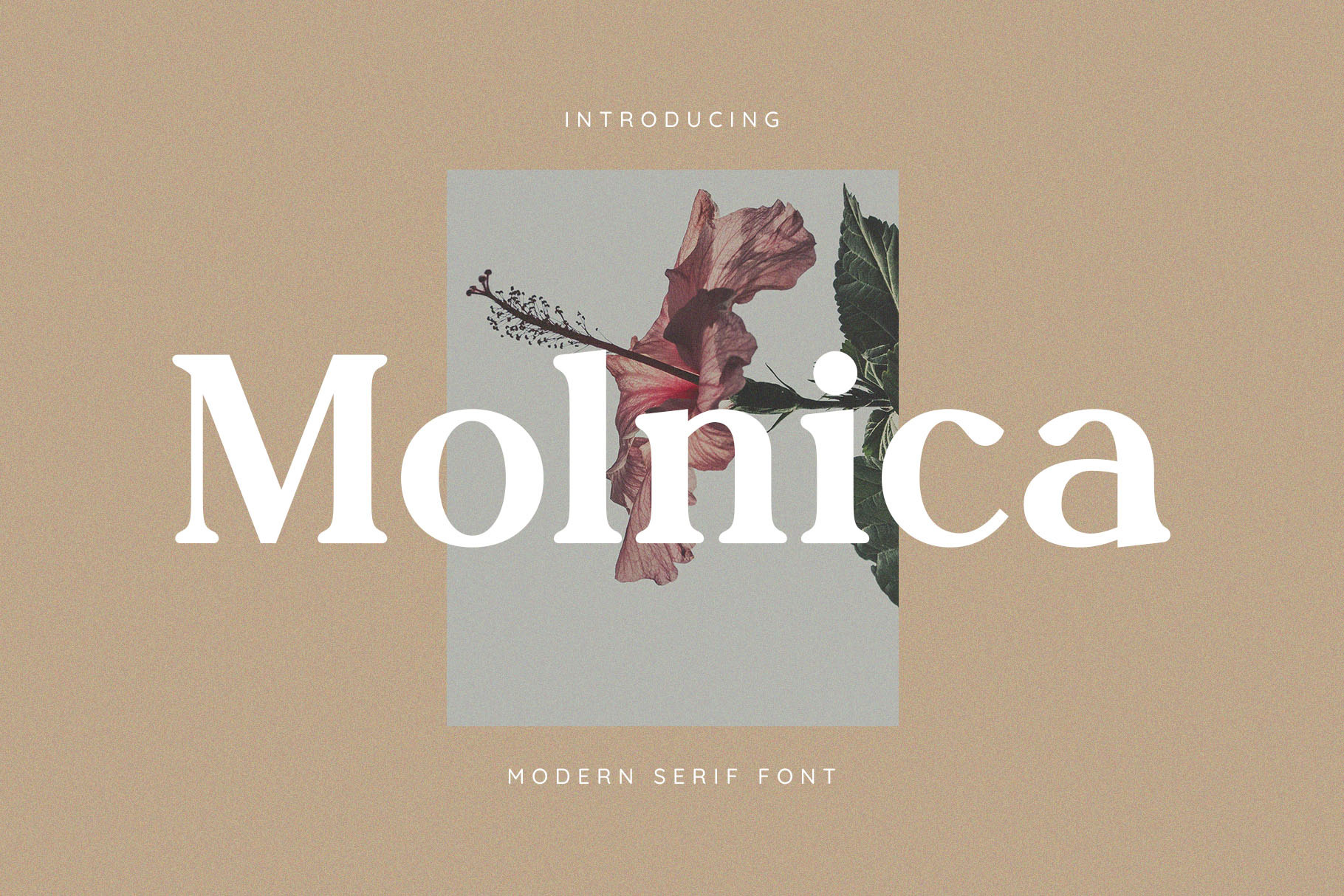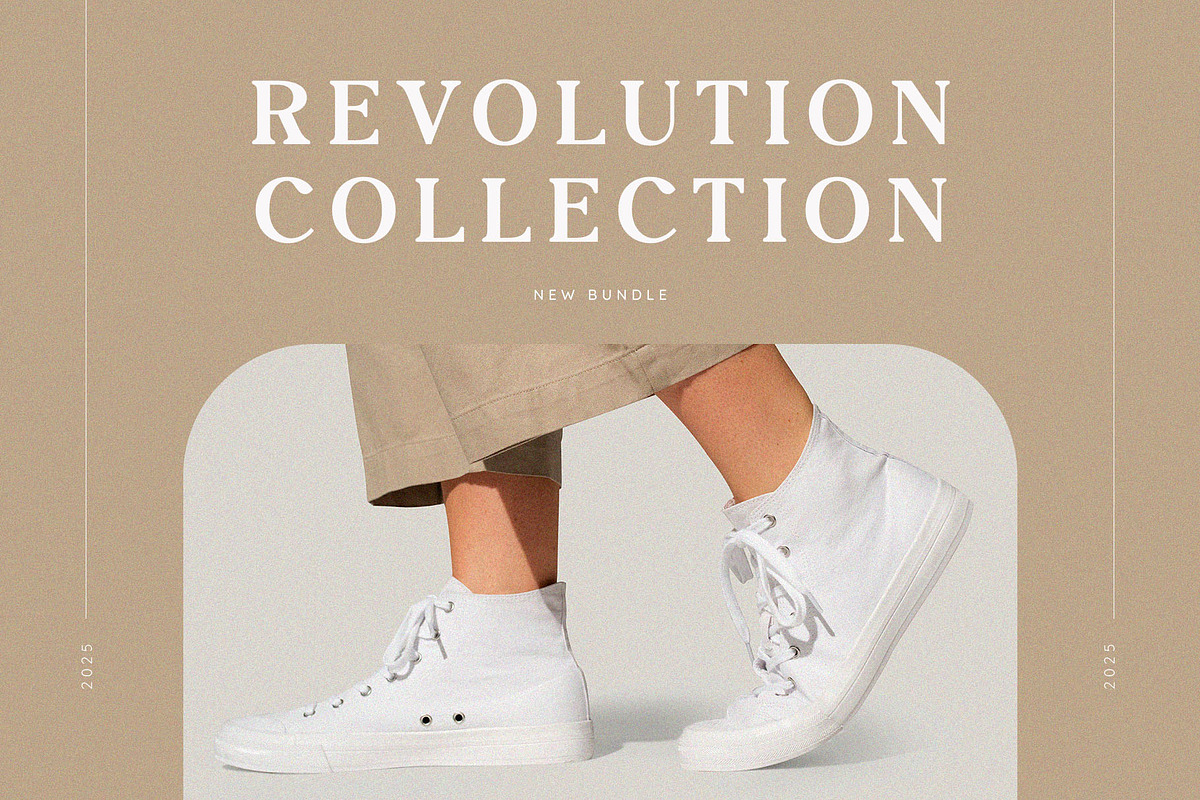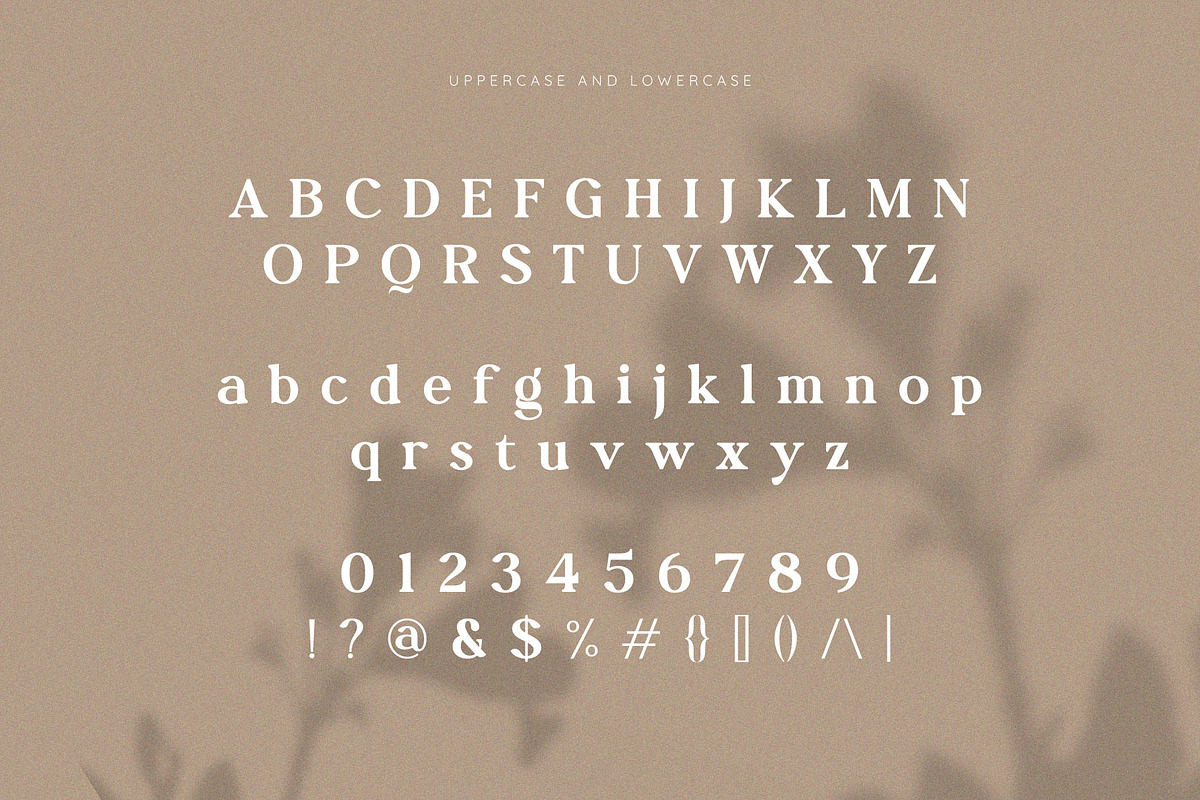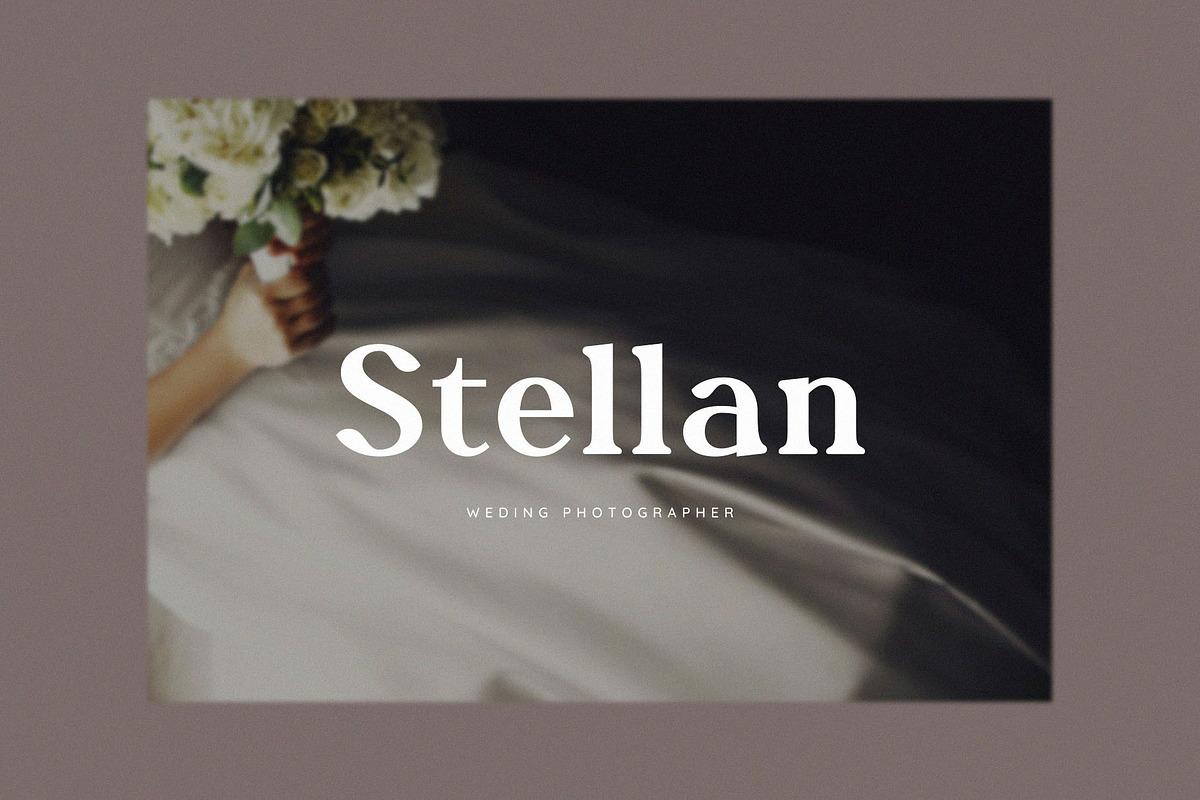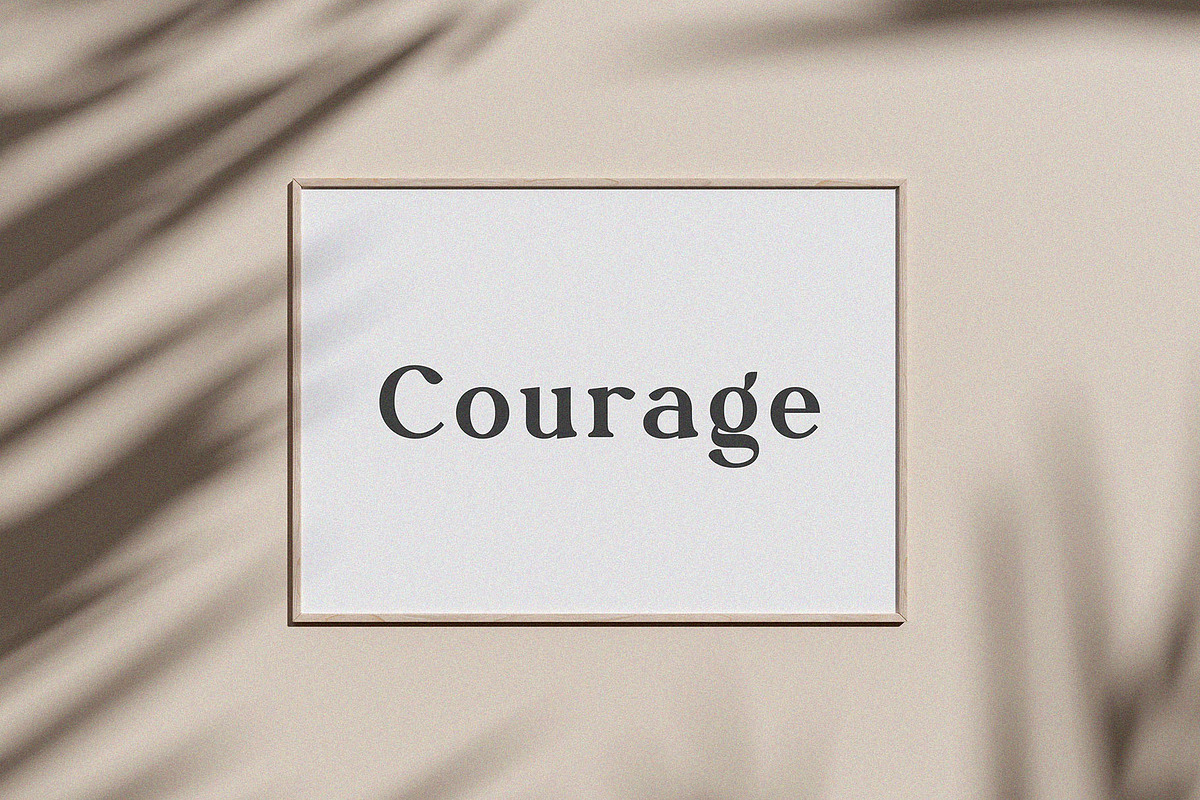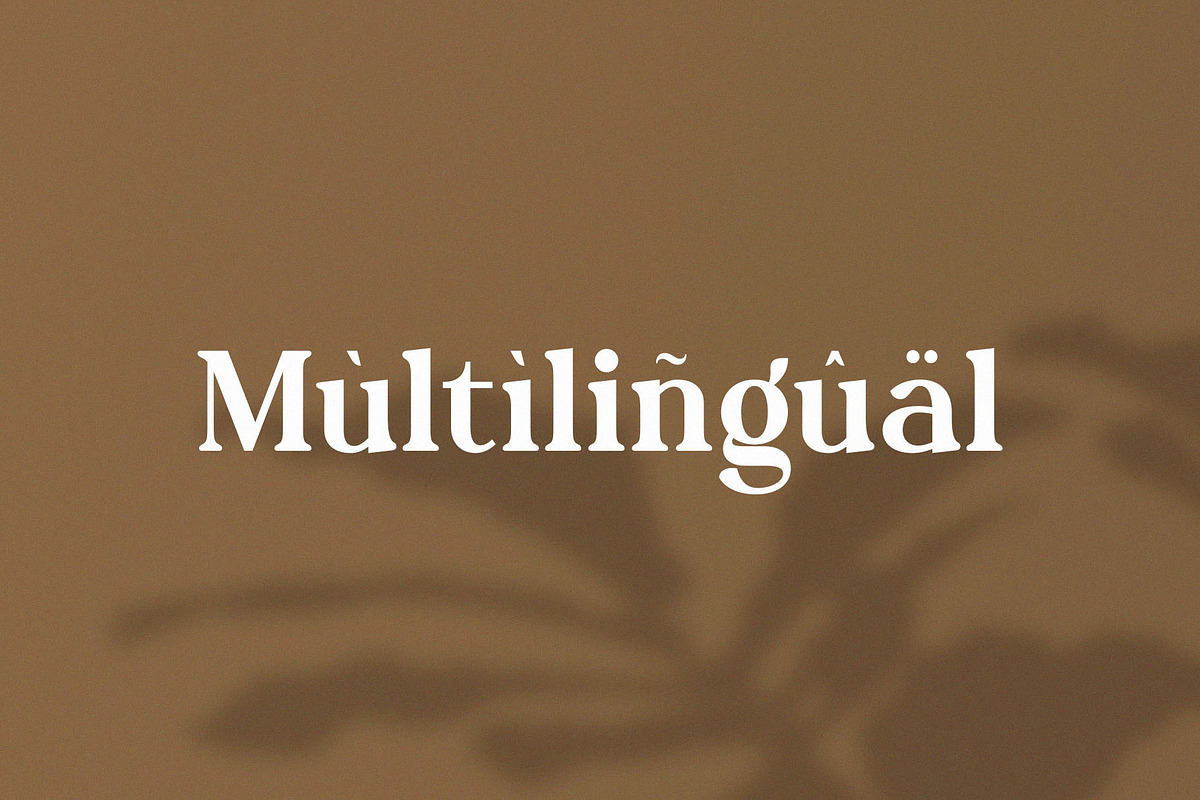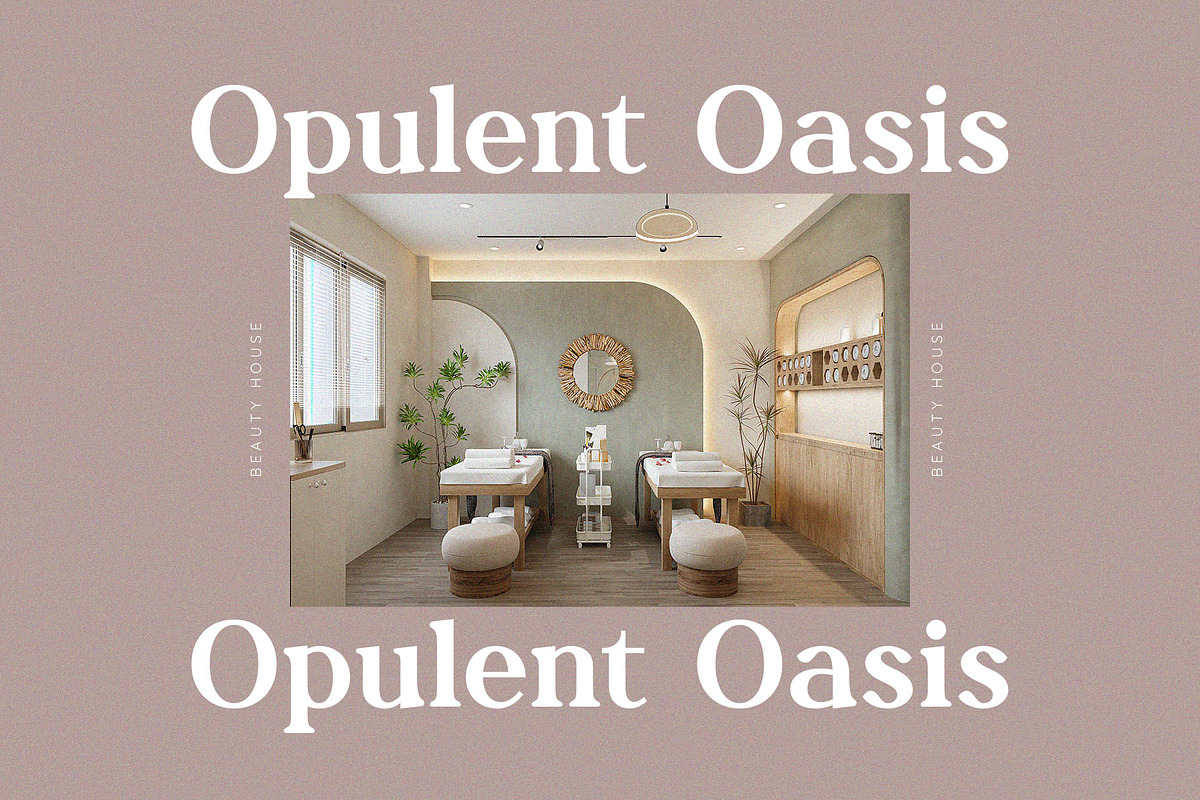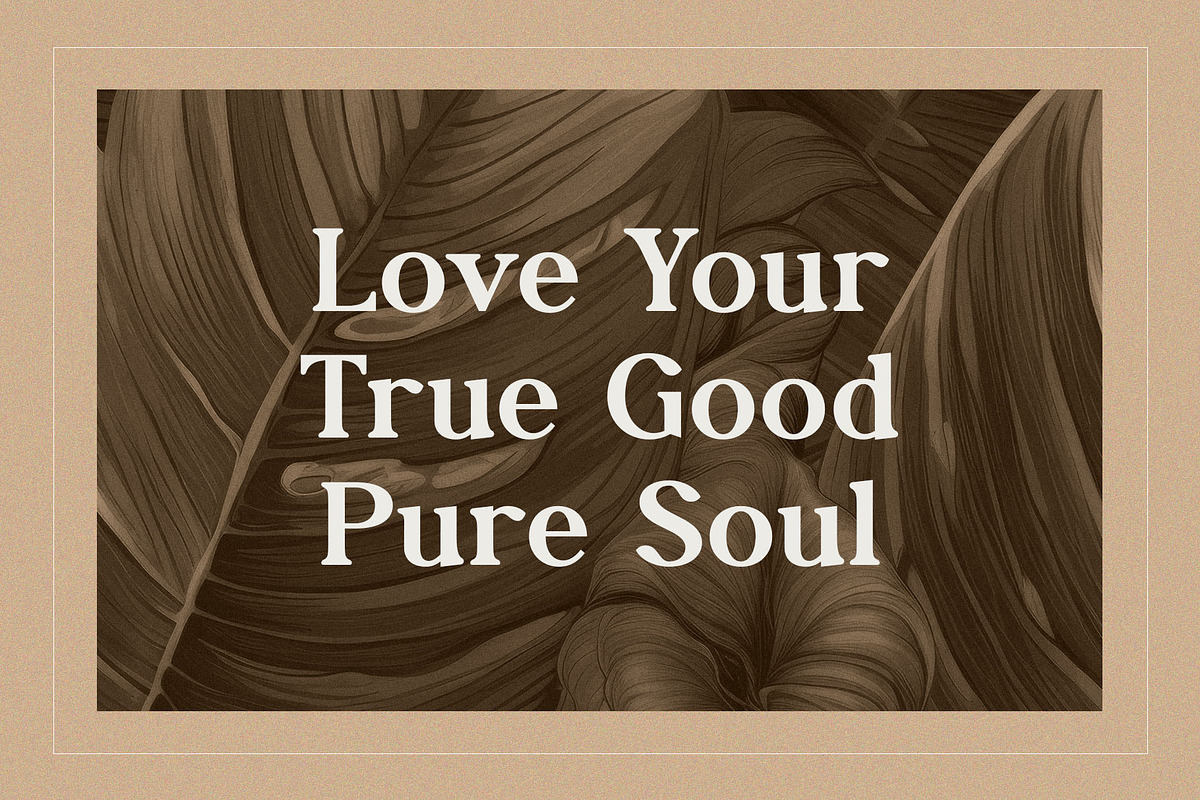
Molnica – Stylish Modern Serif Font
Molnica – Stylish Modern Serif Font for Elegant Visual Branding
Say hello to Molnica, a modern serif font that blends bold character with graceful curves. Designed for contemporary elegance, Molnica is the perfect choice for brands, creatives, and designers looking to add a touch of luxury and refinement to their work.
With strong contrast and well-defined serifs, Molnica stands out beautifully in headlines, logos, packaging, wedding designs, and social media visuals. Its timeless style makes it suitable for both high-end and artistic applications.
- Modern serif style with classic elegance
- Ideal for logos, branding, editorial, and more
- Clean and stylish for both print and digital media
- Perfect for luxury, fashion, beauty, and lifestyle designs
- Great legibility with a distinctive personality
Molnica brings sophistication to every letterform. If you're looking for a serif font that combines strength and softness, this typeface will elevate your design game instantly.